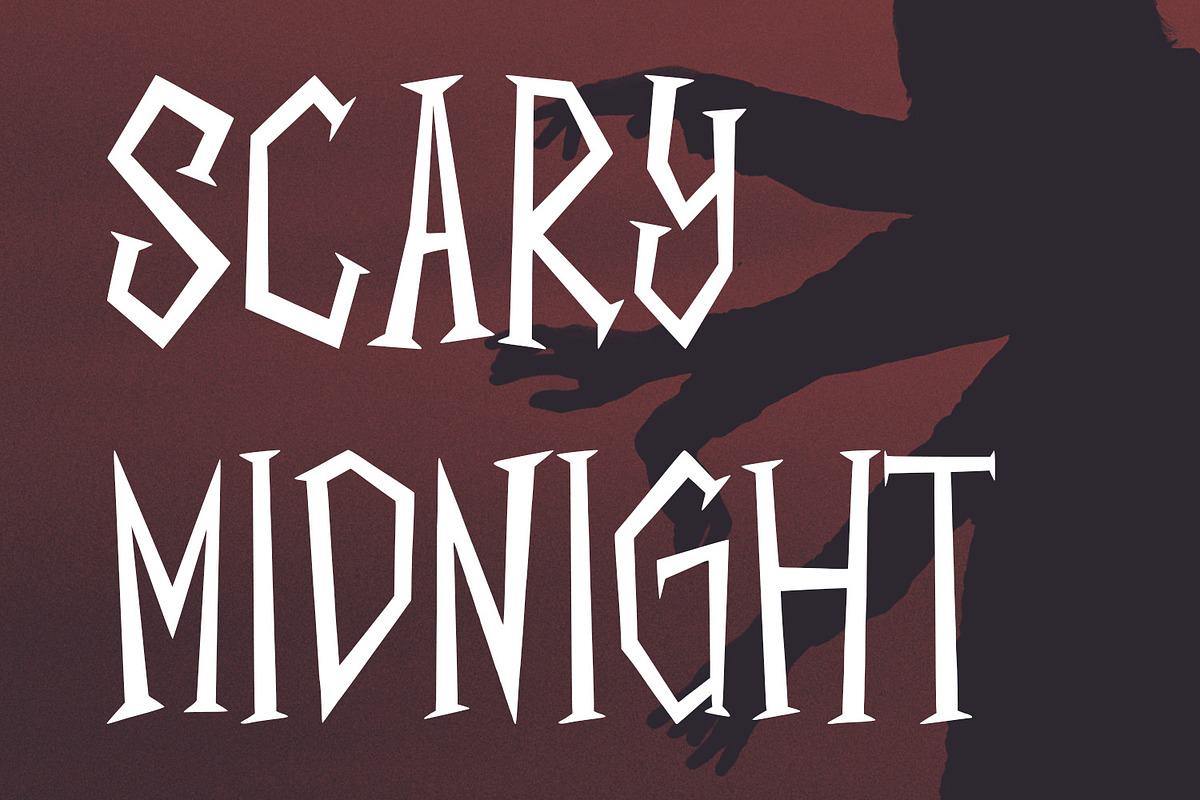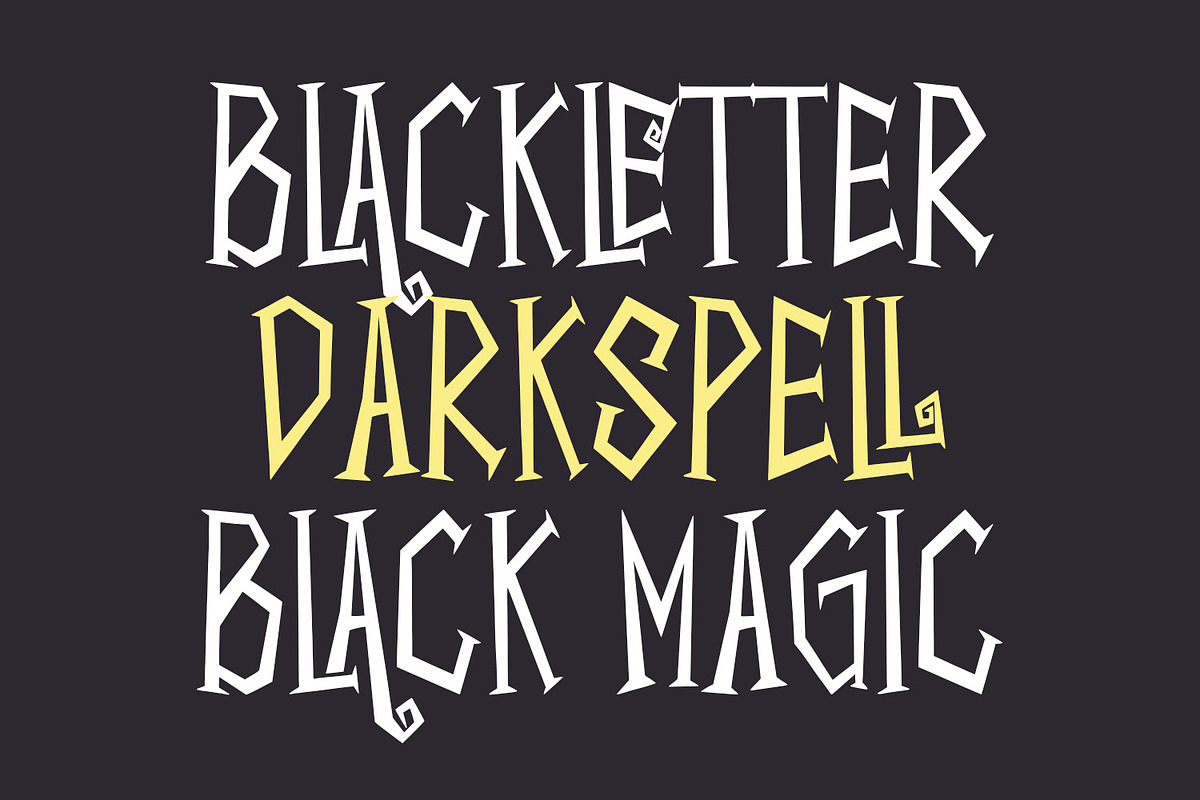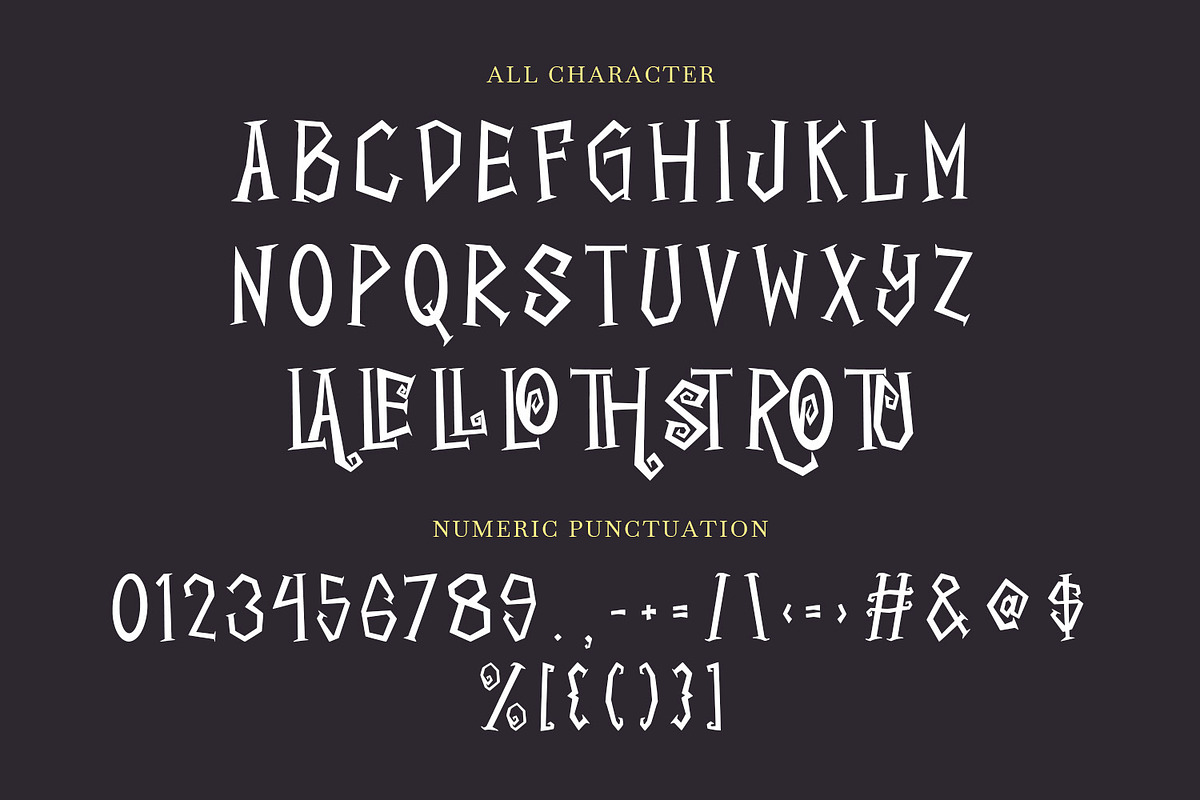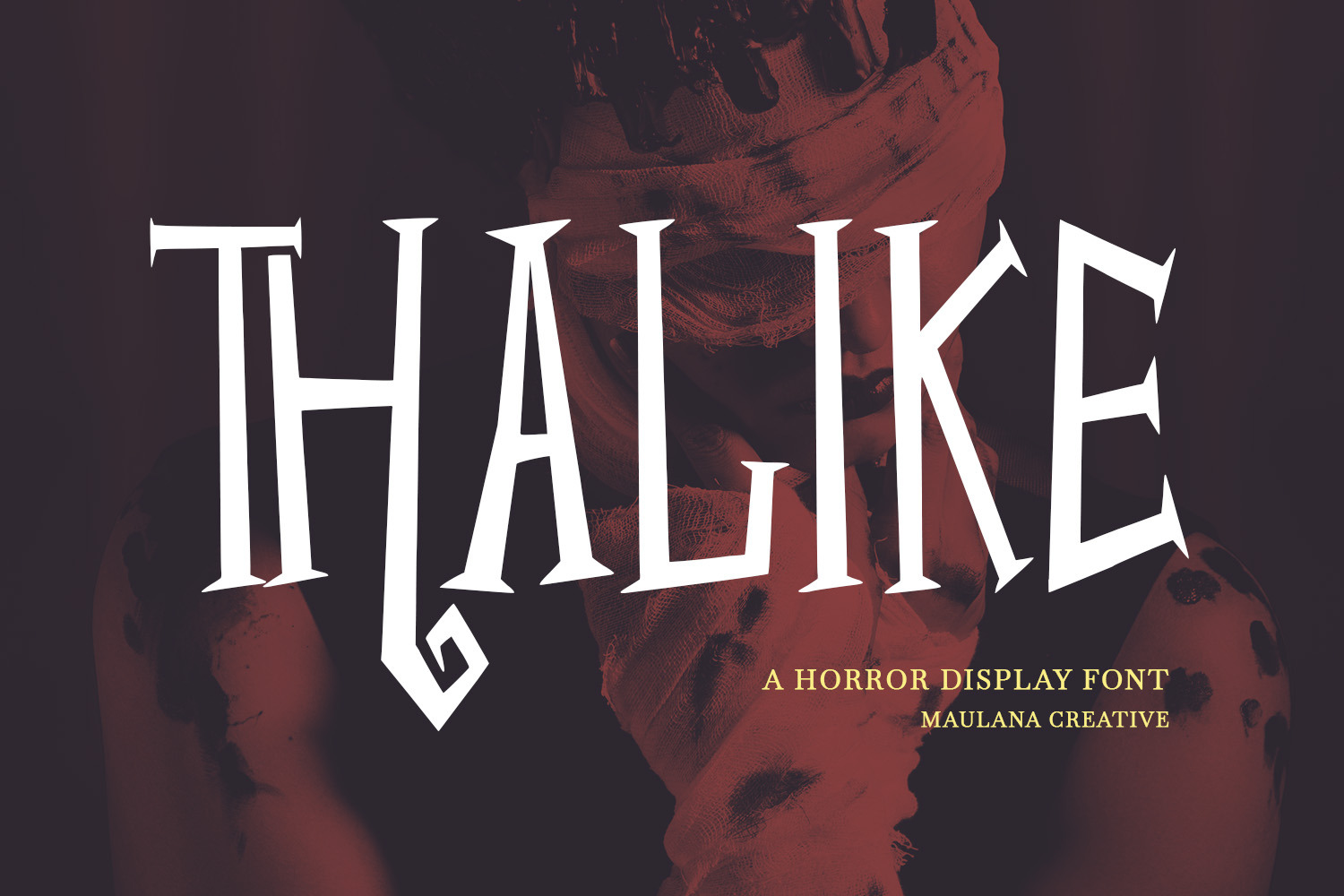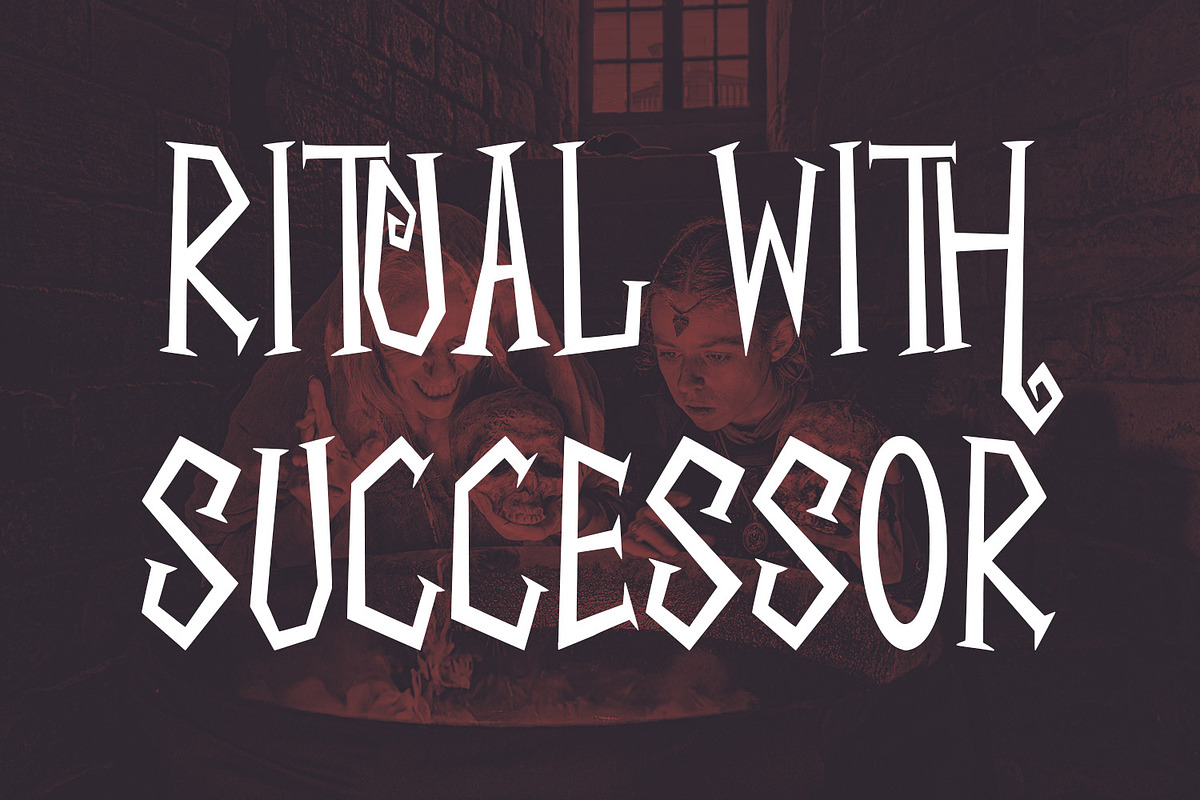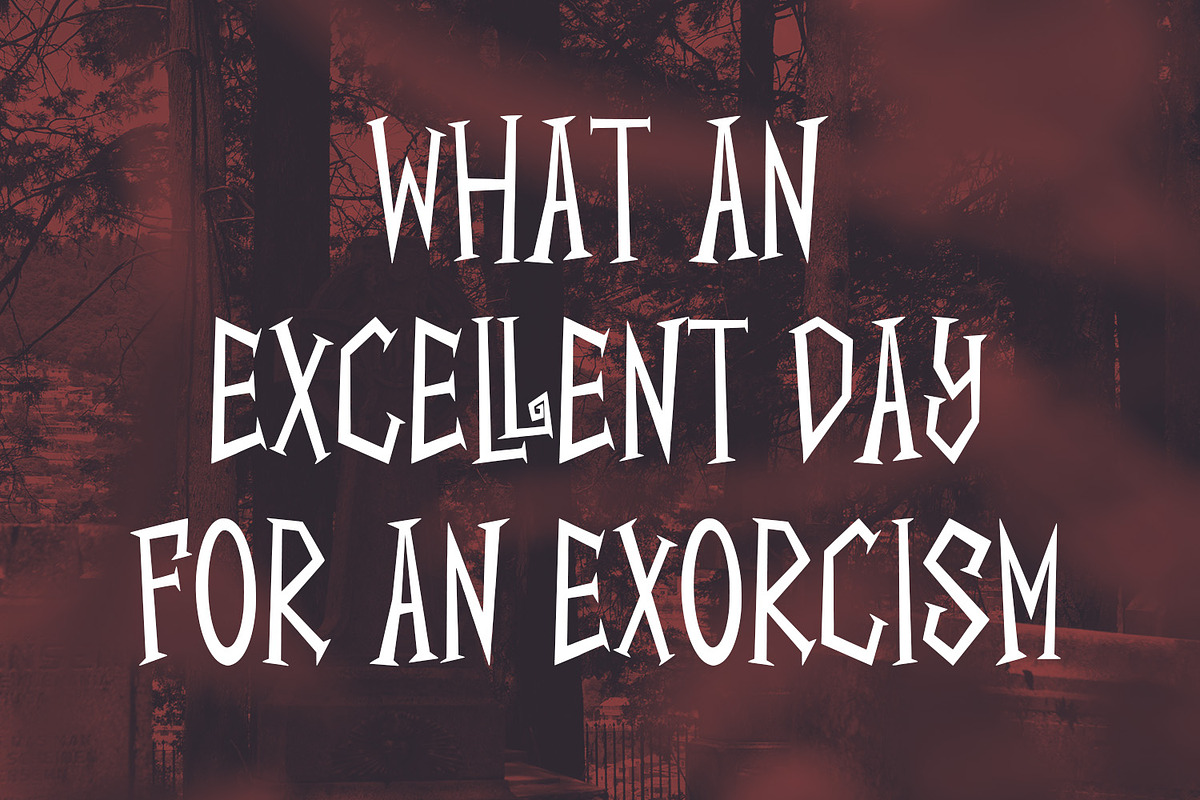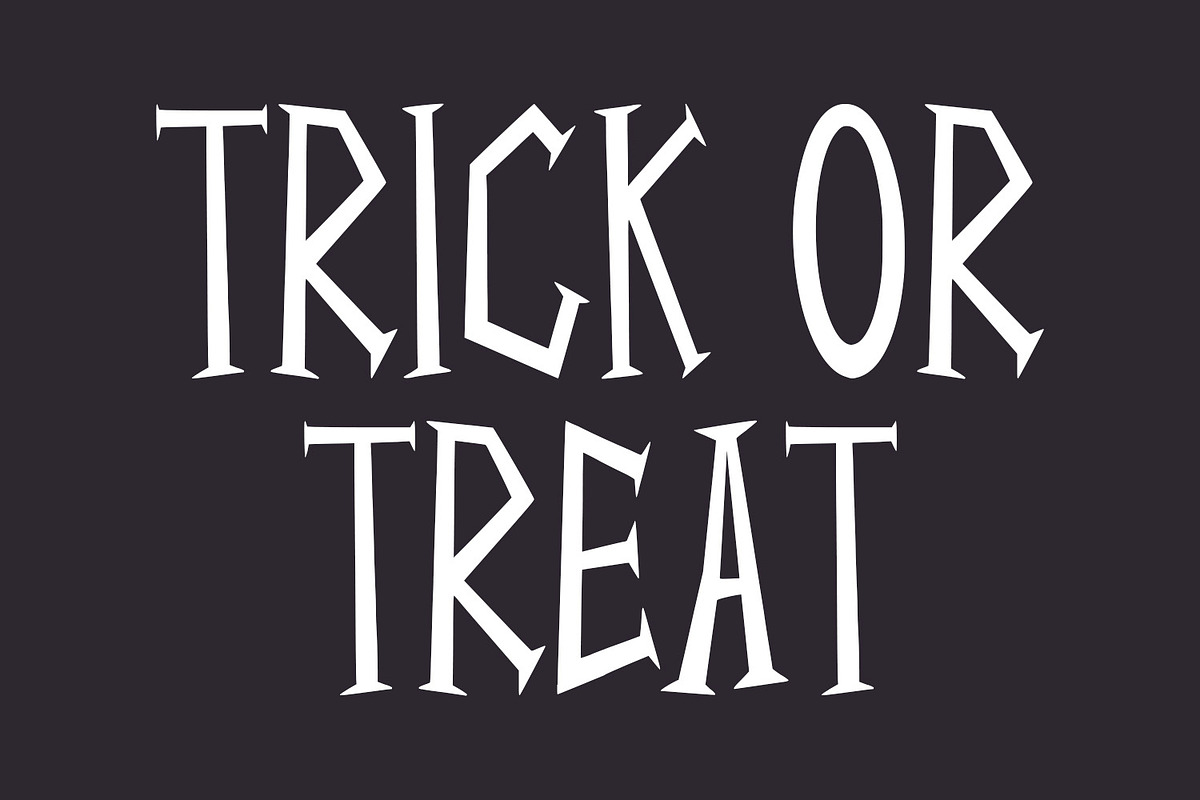
Thalike Display Font
Thalike is a horror display font. With bold stroke, fun character with a bit of ligatures. To give you an extra creative work. Thalike font support multilingual more than 100+ language. This font is good for logo design, Social media, Movie Titles, Books Titles, a short text even a long text letter and good for your secondary text font with sans or serif. Make a stunning work with Thalike font.